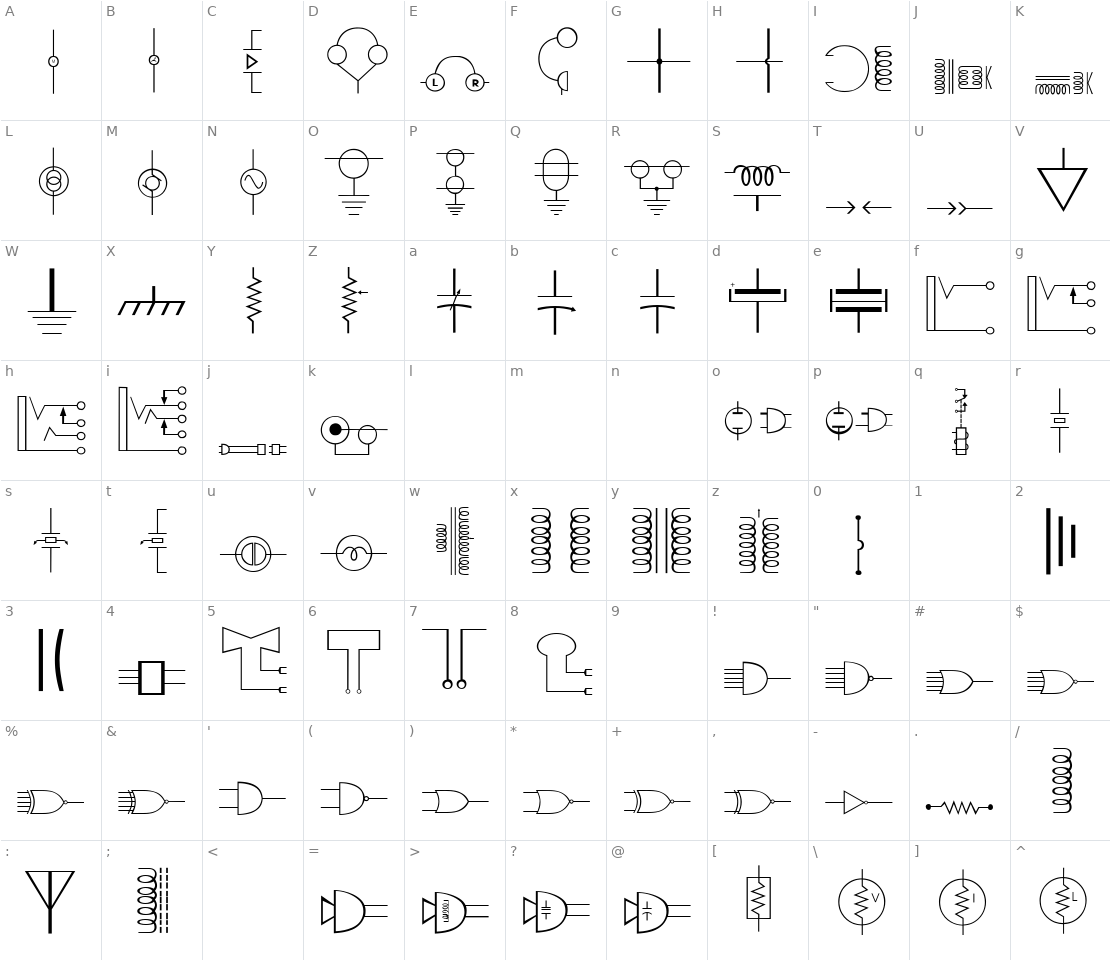
Carr Electronic
by Alan Carr
Carr Electronic by Alan Carr is a symbol font made up of electronic schematic components, resistors, capacitors, logic gates, and the kind of marks you'd find on a circuit diagram. It's not a text face at all but a practical tool for engineers, educators, and technical illustrators who need to quickly set electrical symbols without drawing them from scratch.